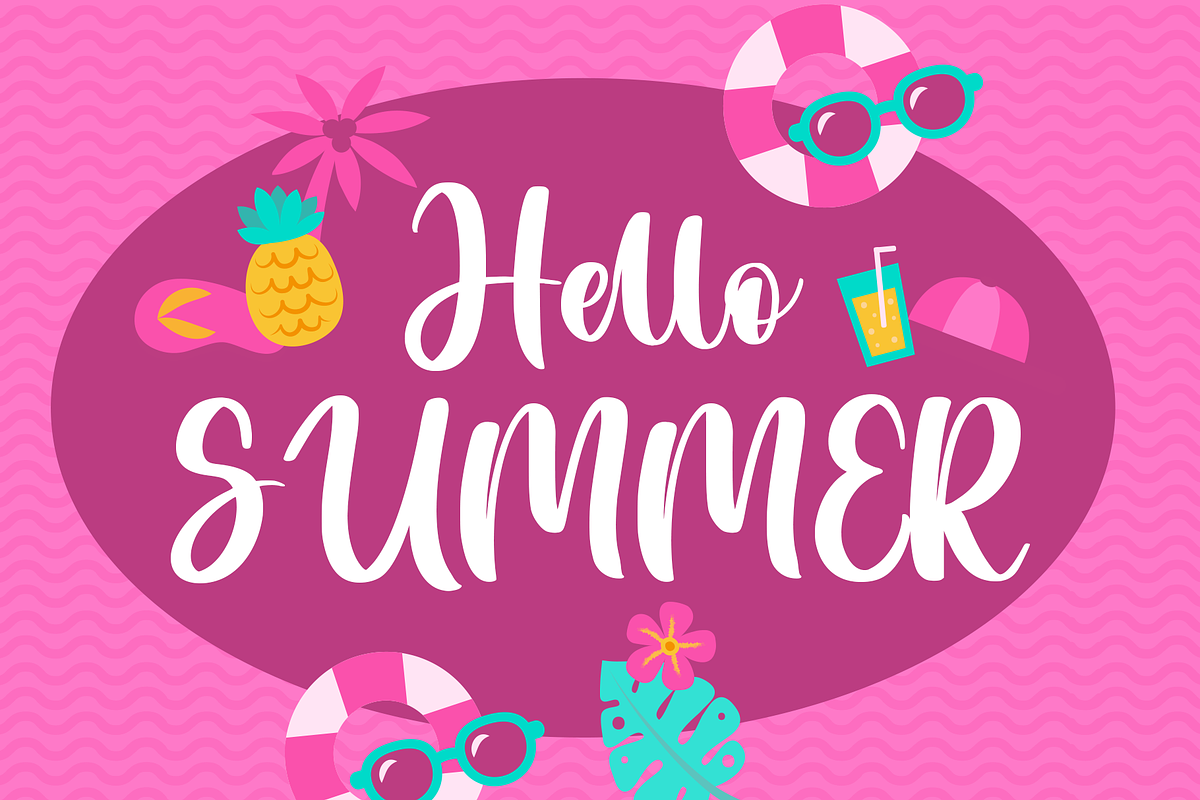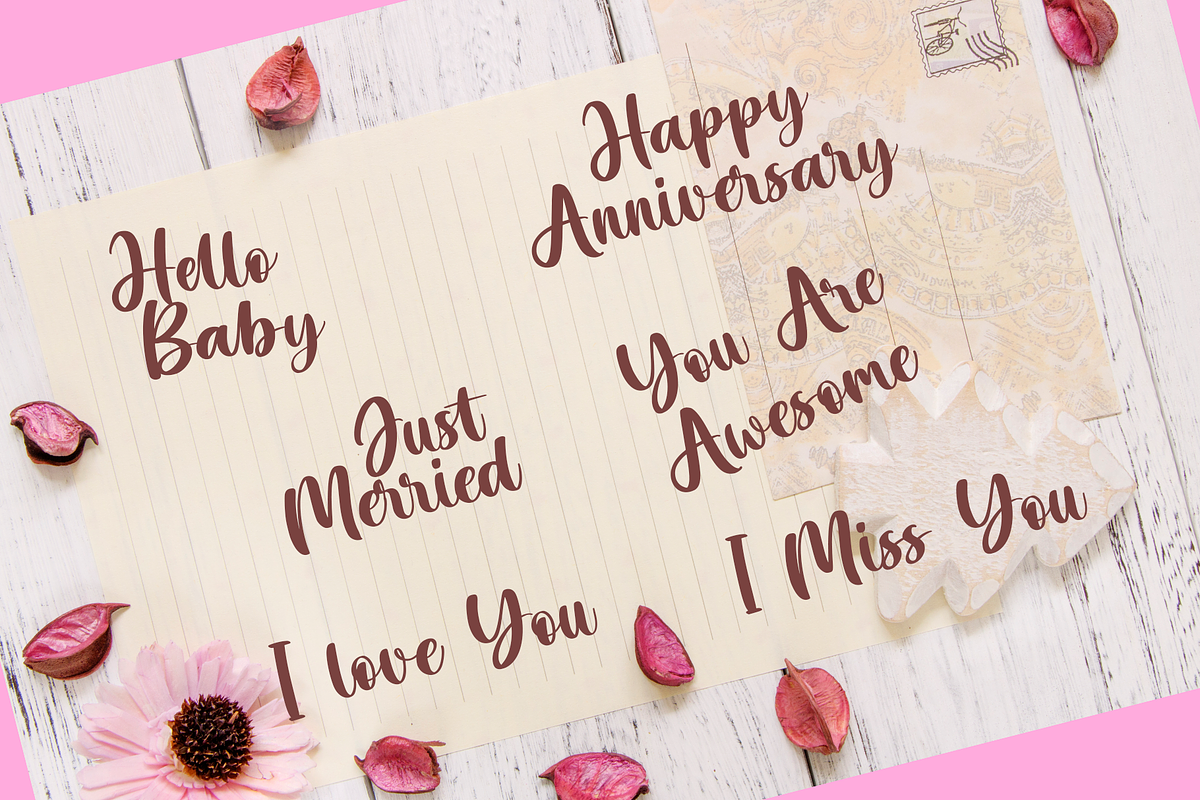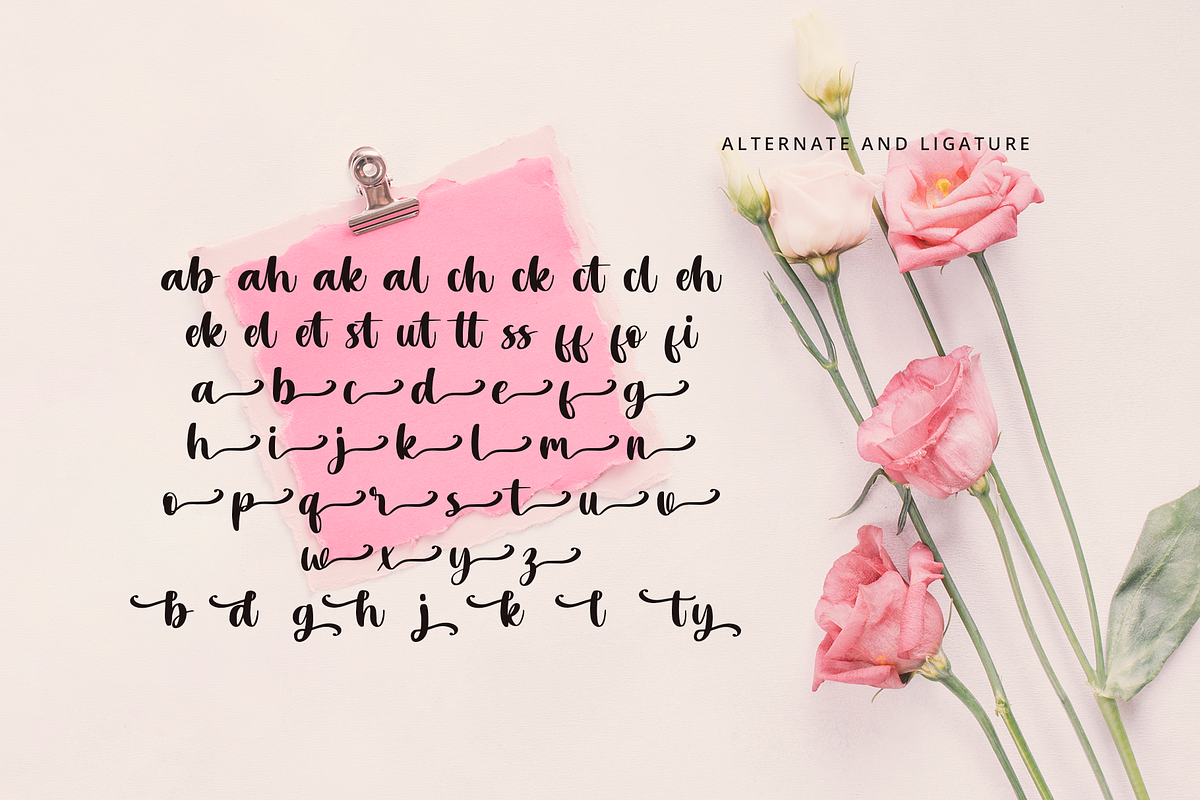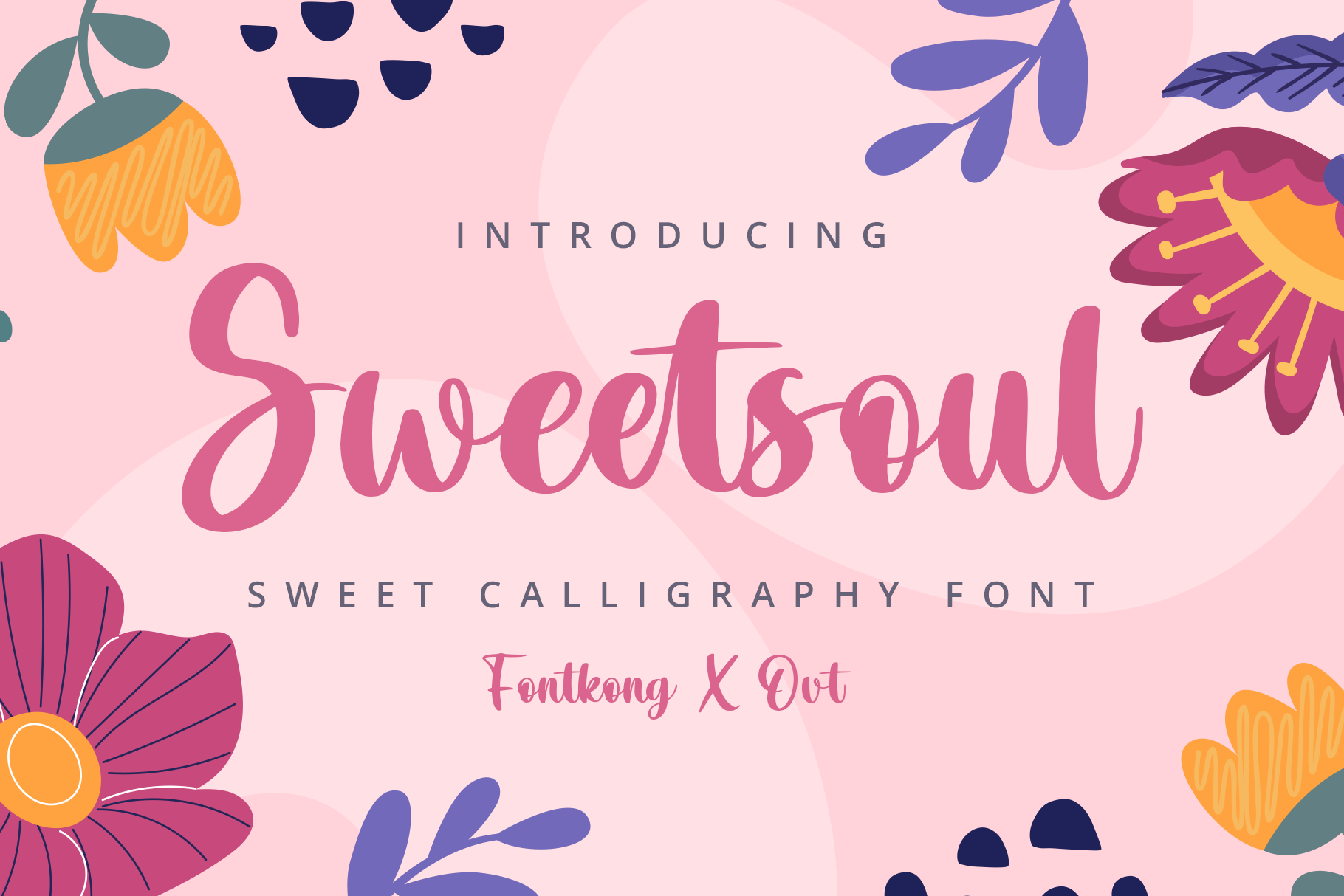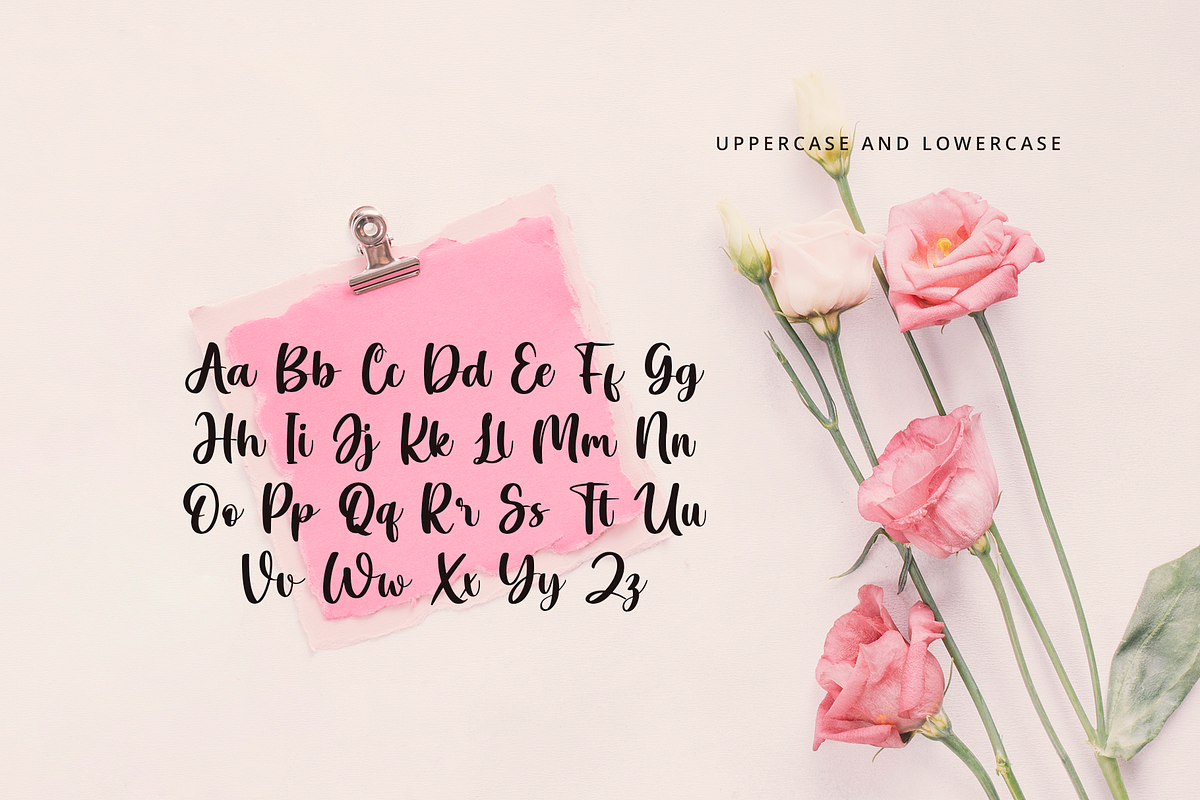
Sweetsoul - Sweet Calligraphy Font
Sweetsoul is a sweet calligraphy font with a romantic and elegant style. Ideal for invitations, wedding designs, branding, and personal projects, Sweetsoul adds a charming and graceful touch to your work.